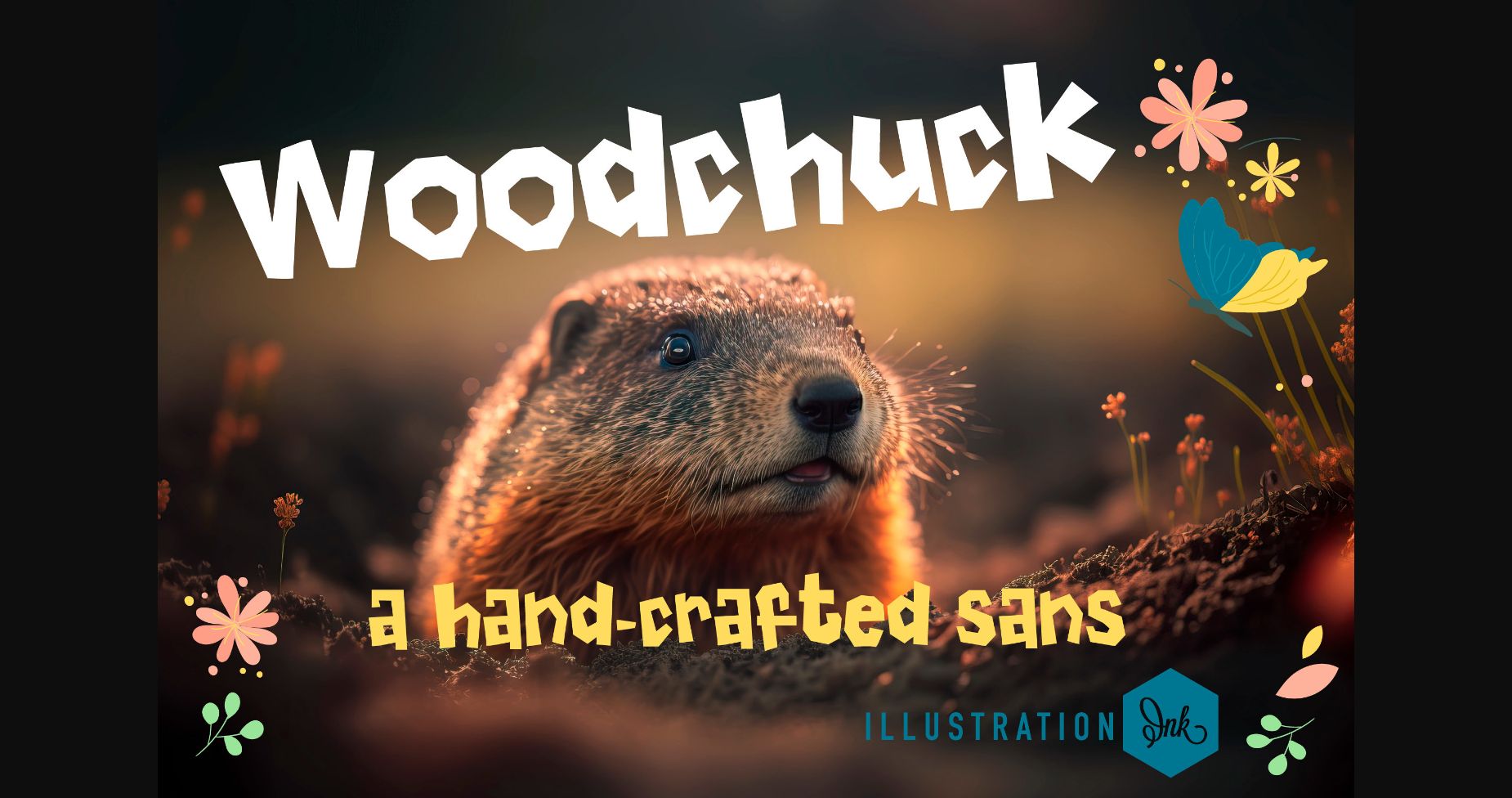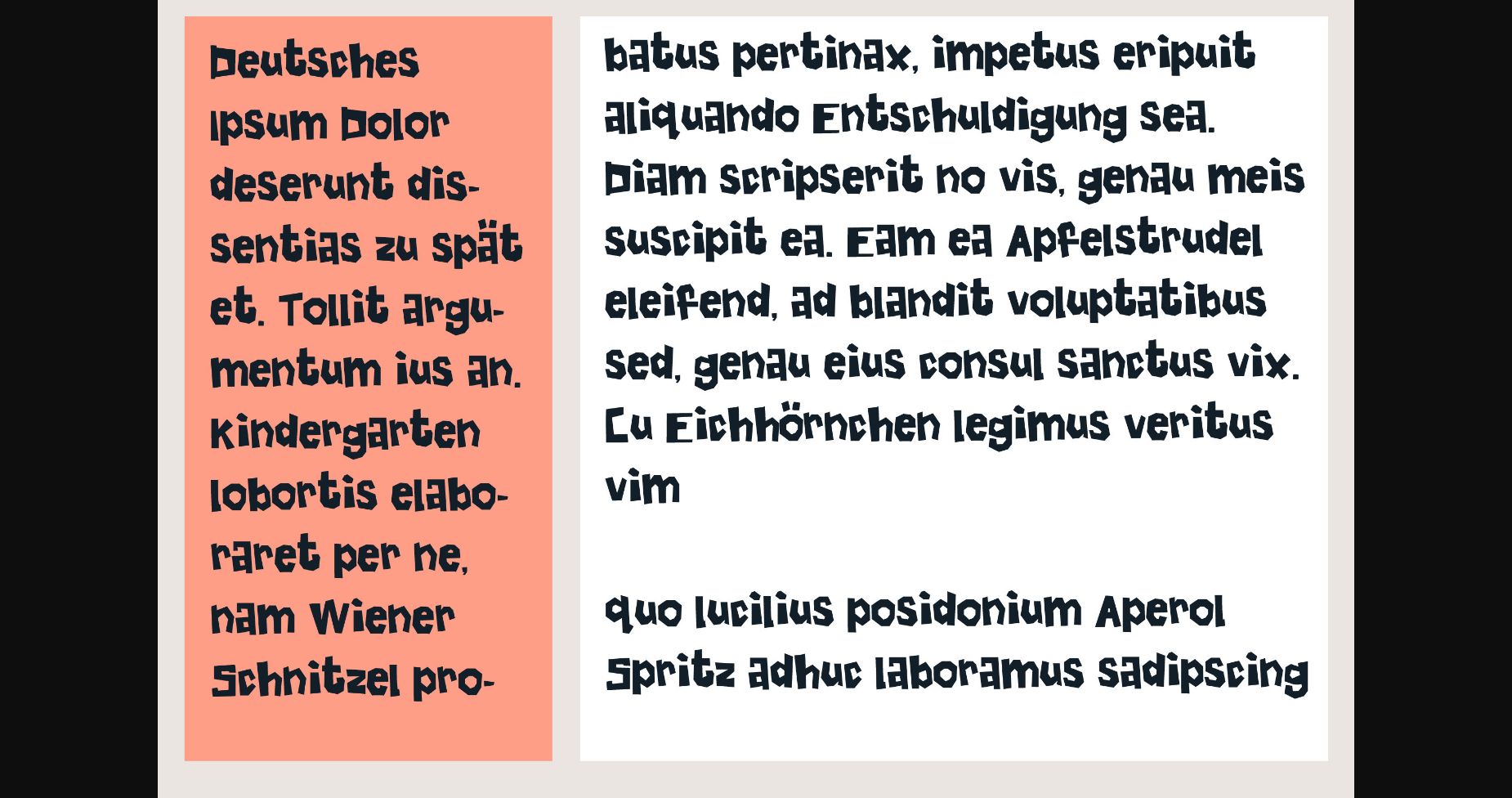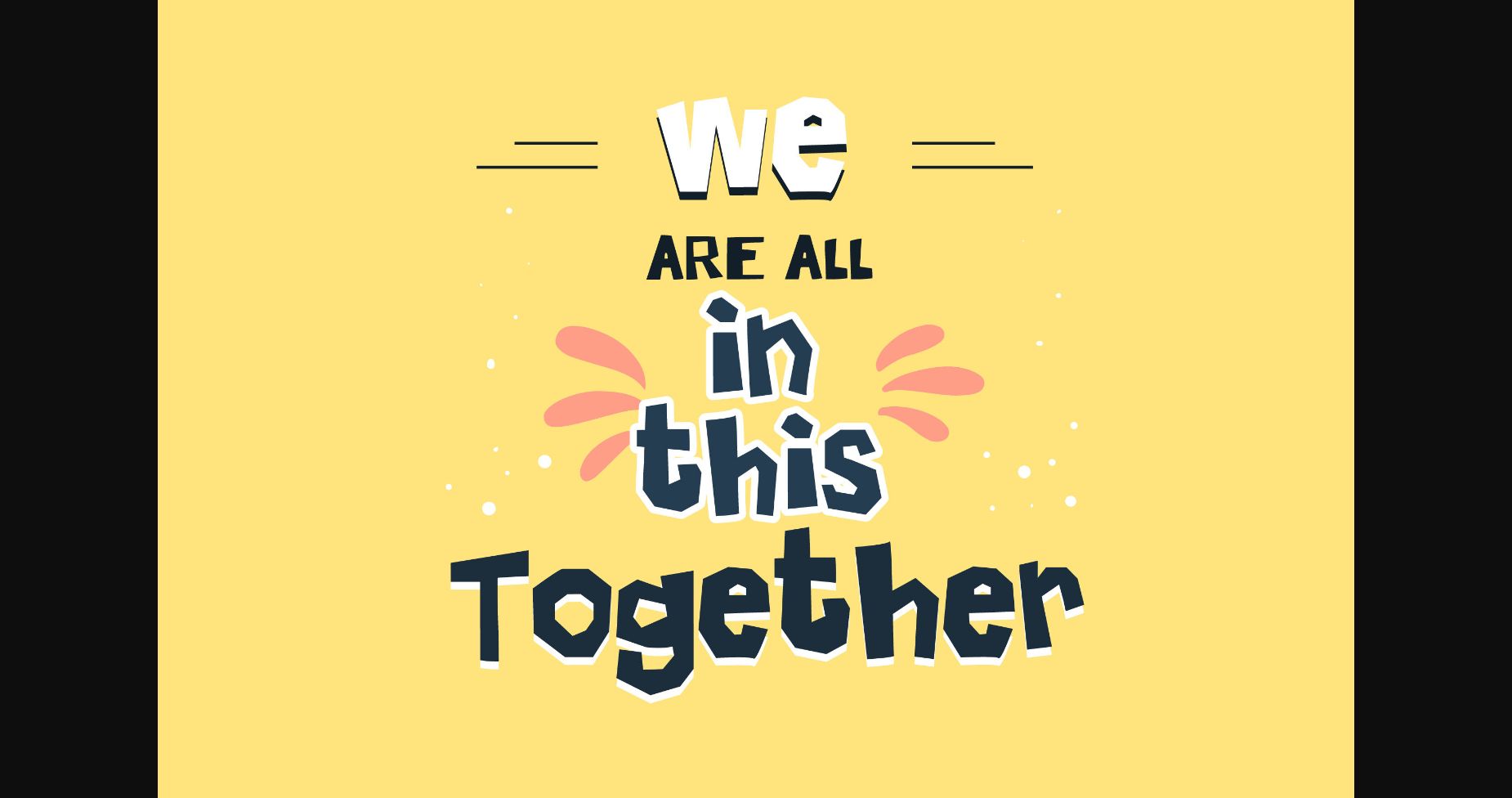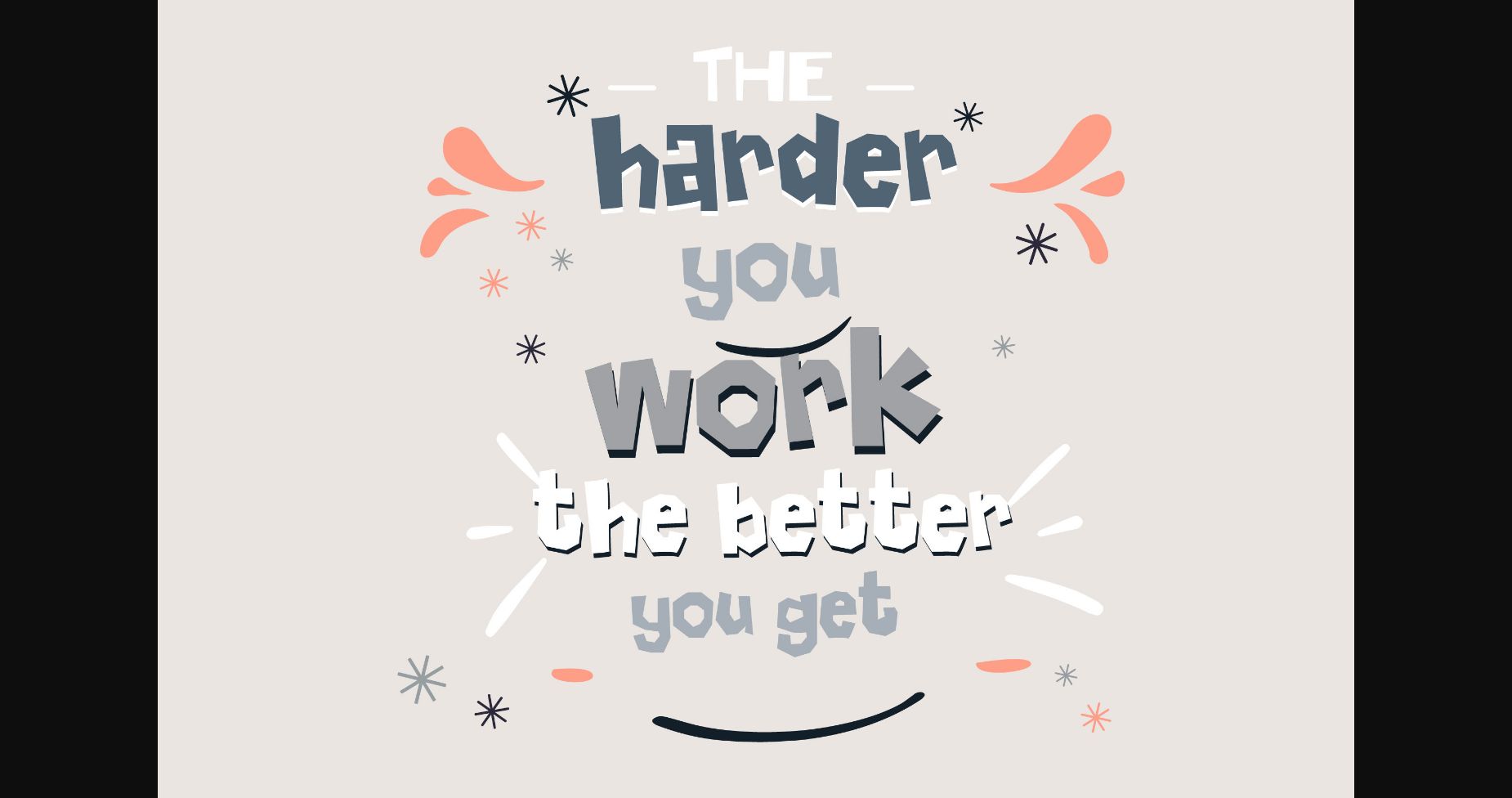
About Woodchuck Font
Woodchuck is a chunky and attractive sans-serif font that’s bold and versatile. The letters are clean and simple, with a touch of character and personality. Its thickness and geometric shapes make it perfect for any project that requires a strong and impactful design, from logos to headlines.